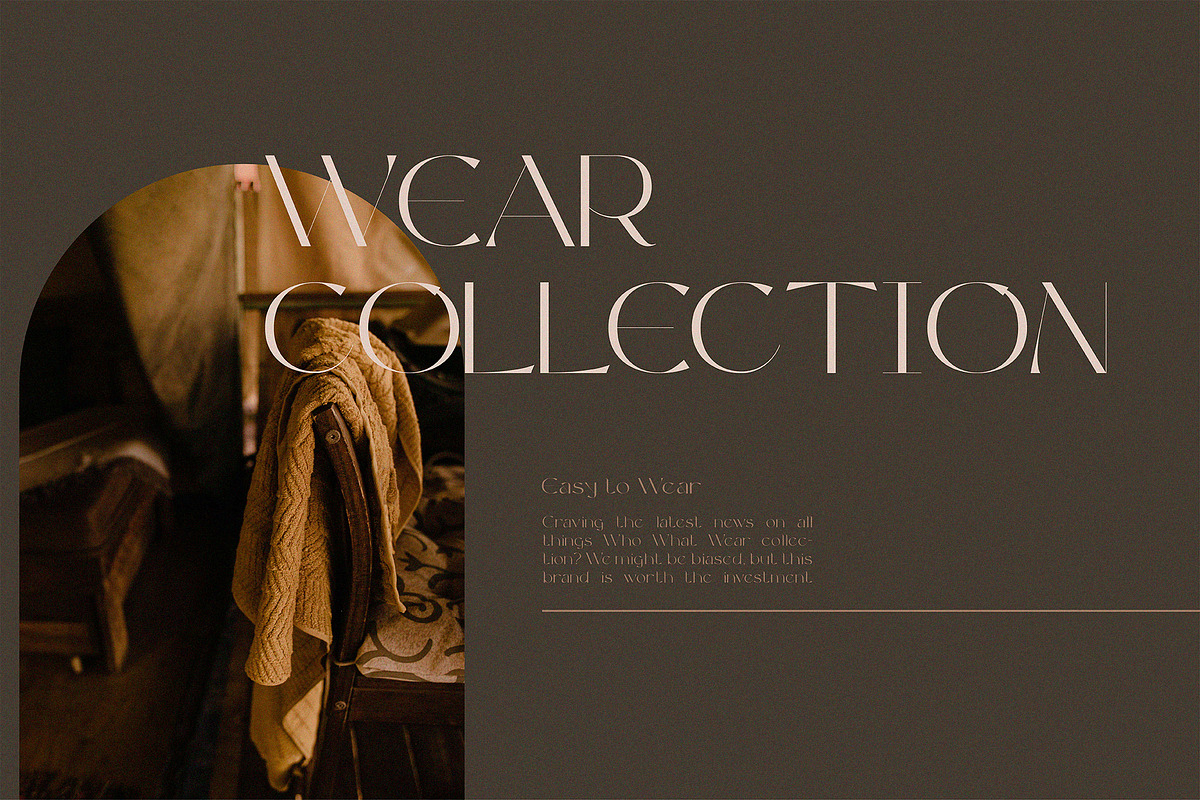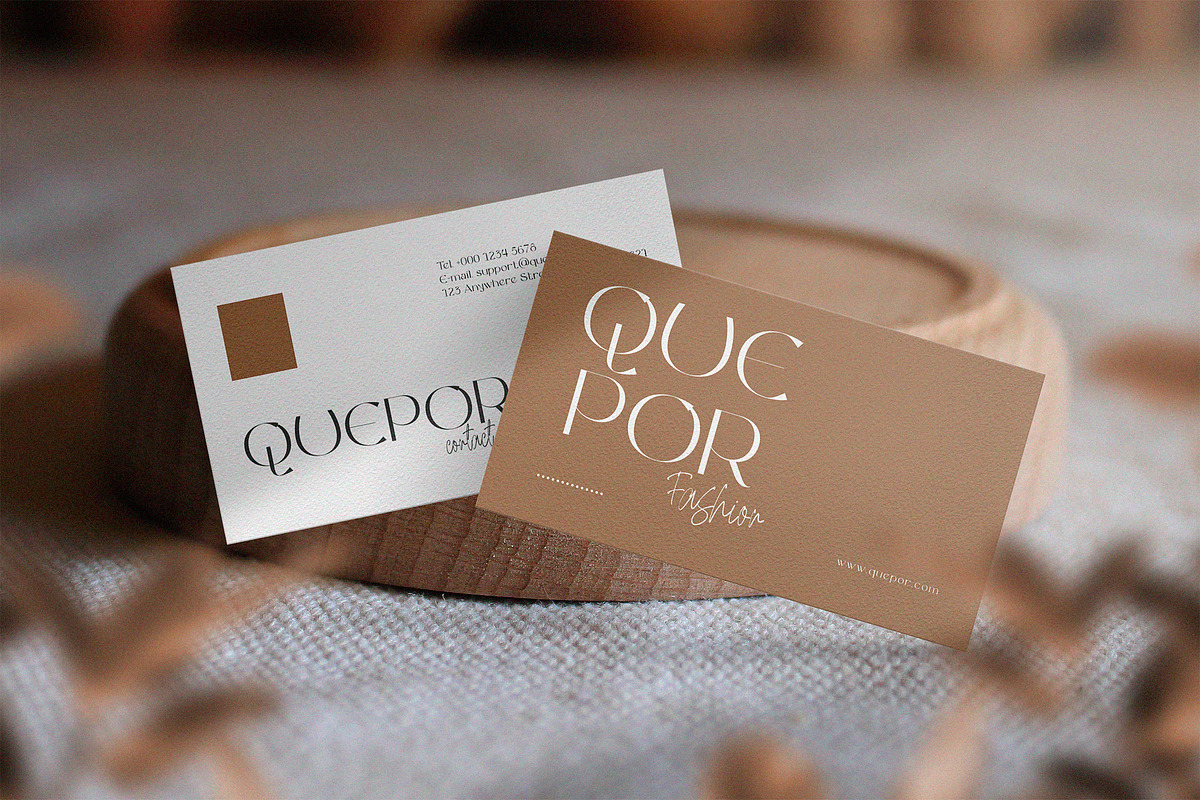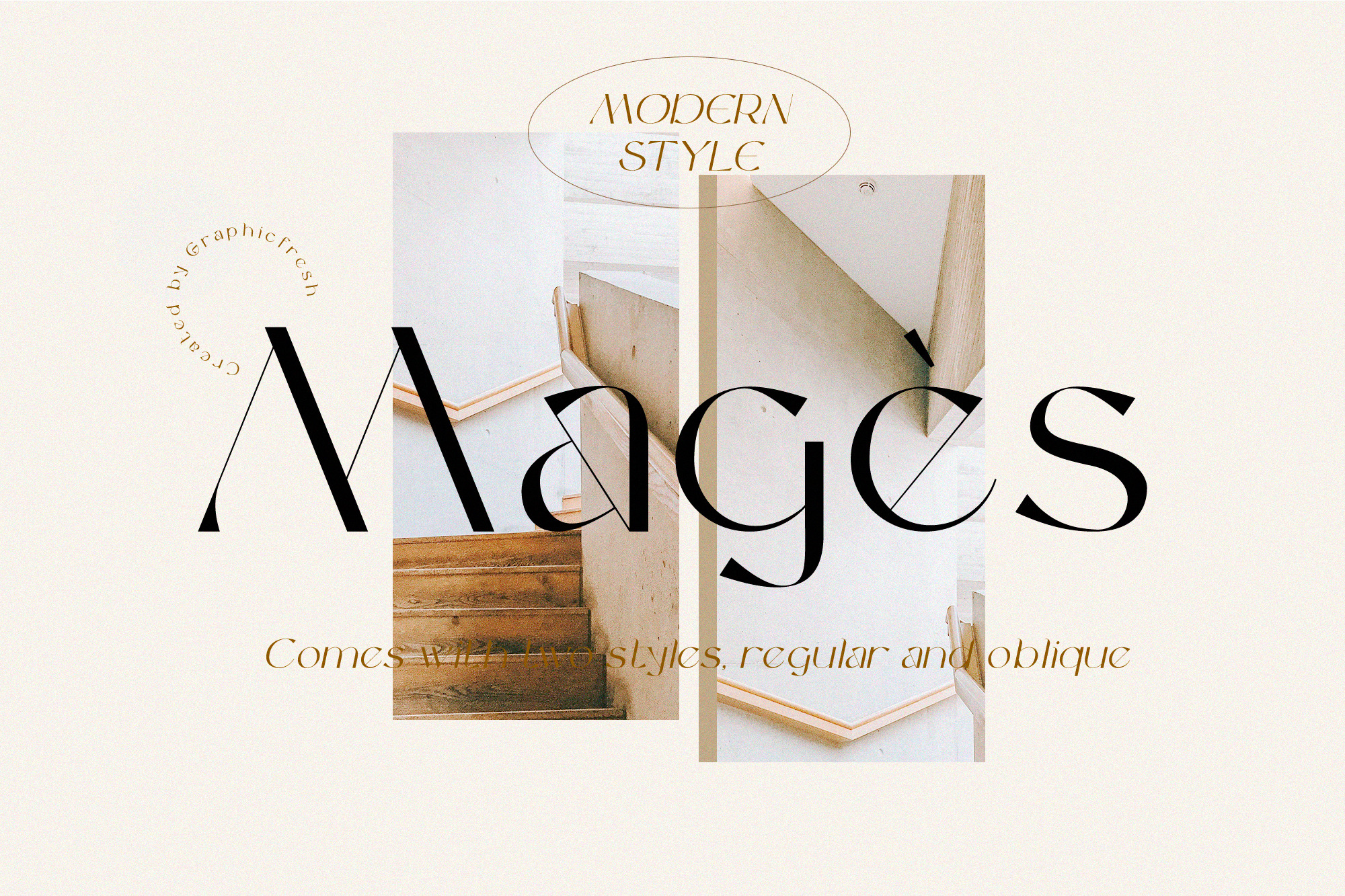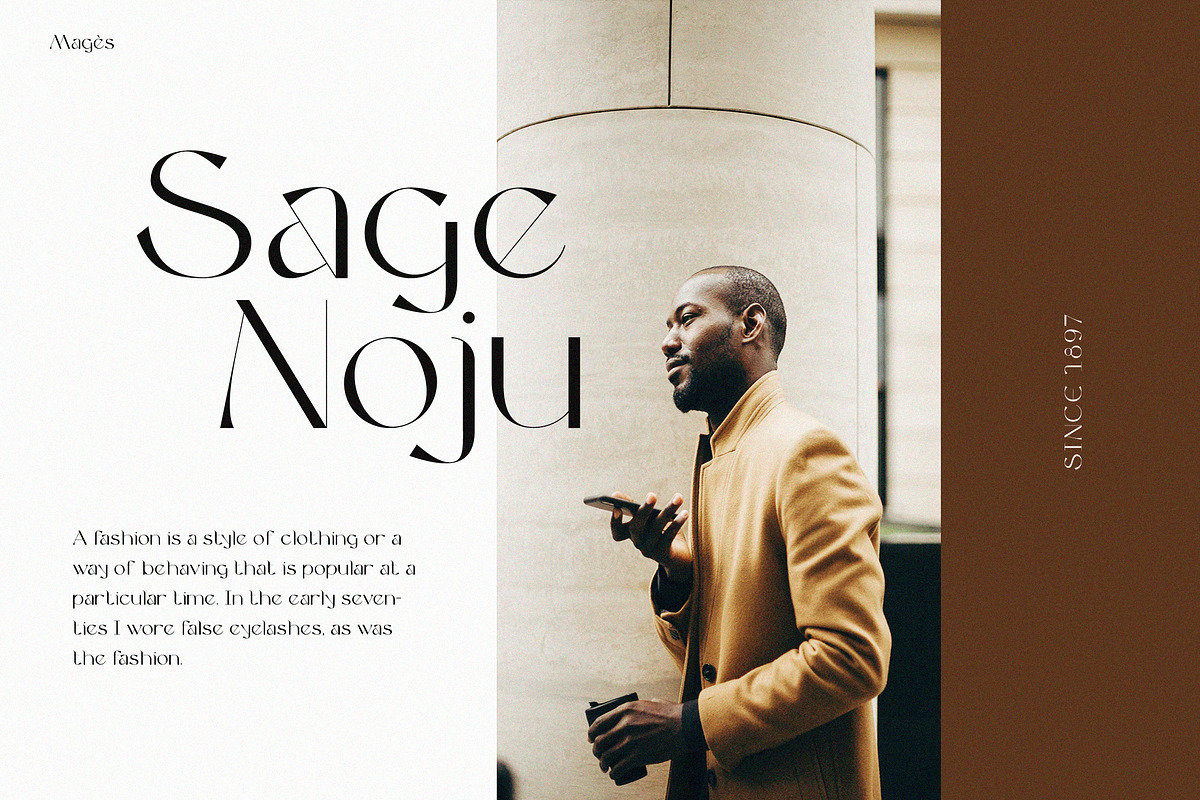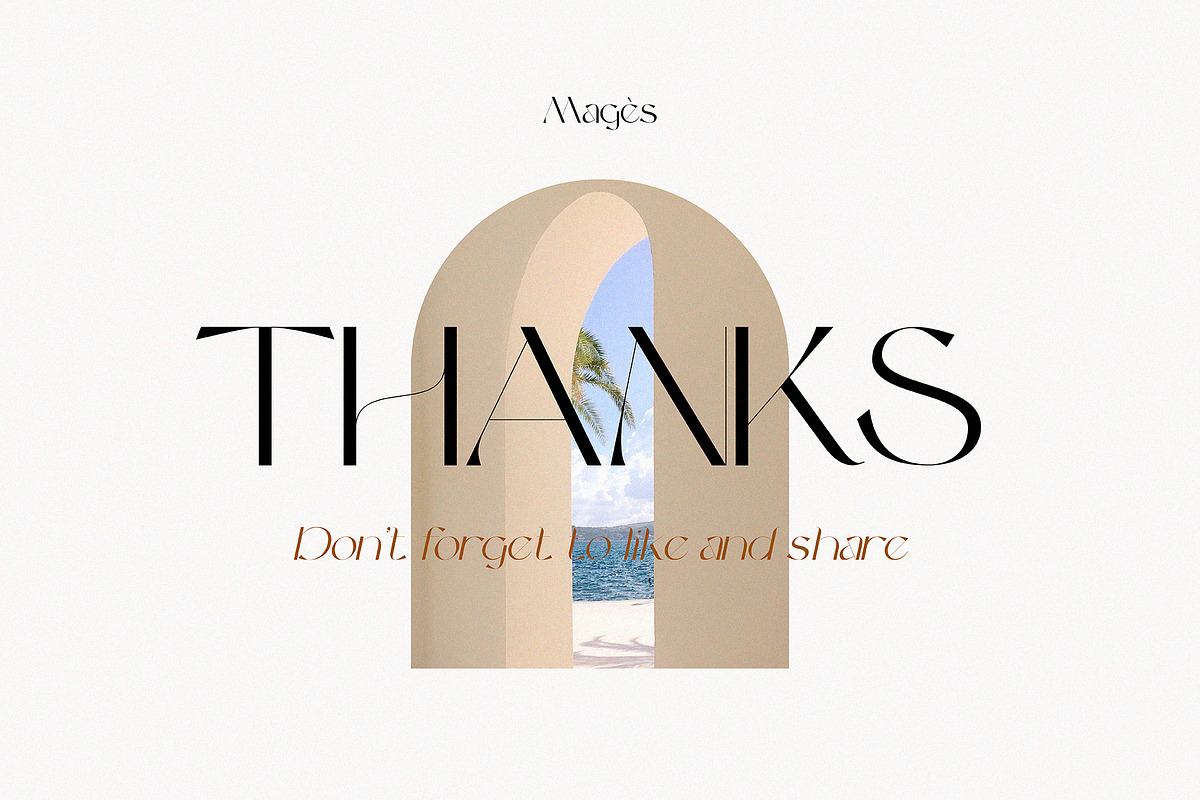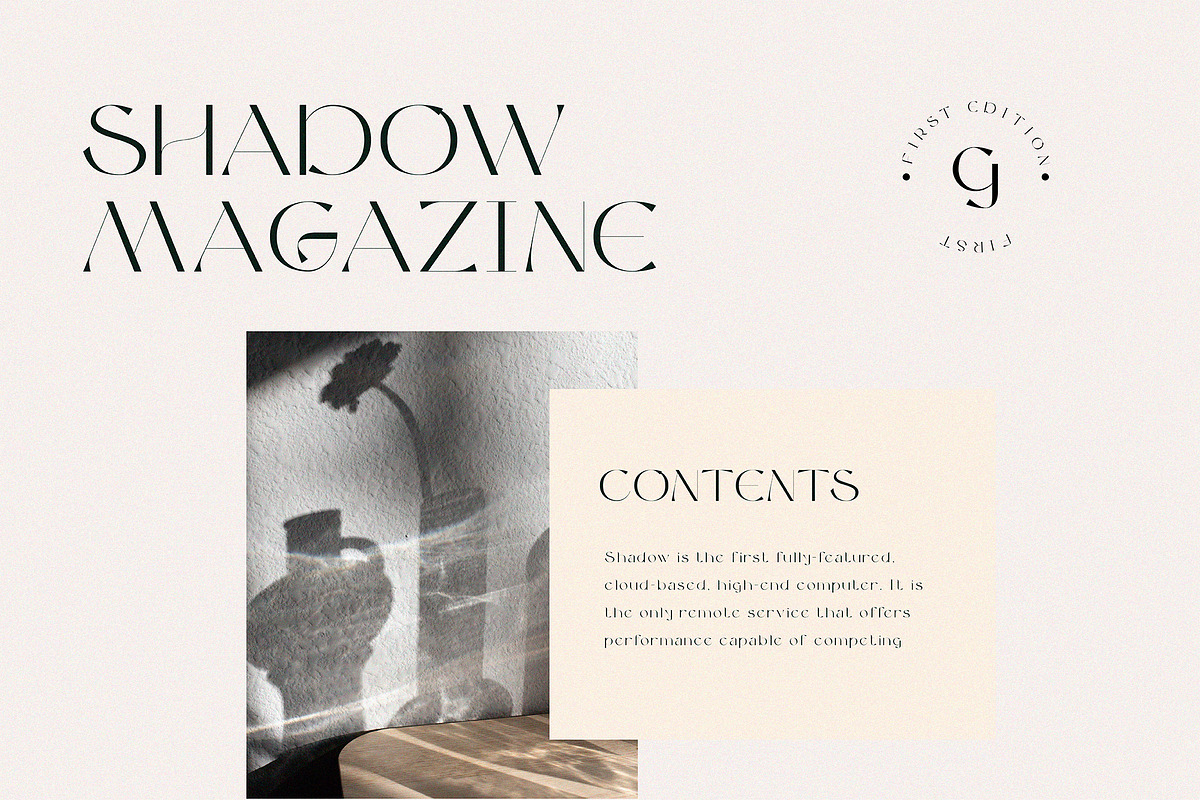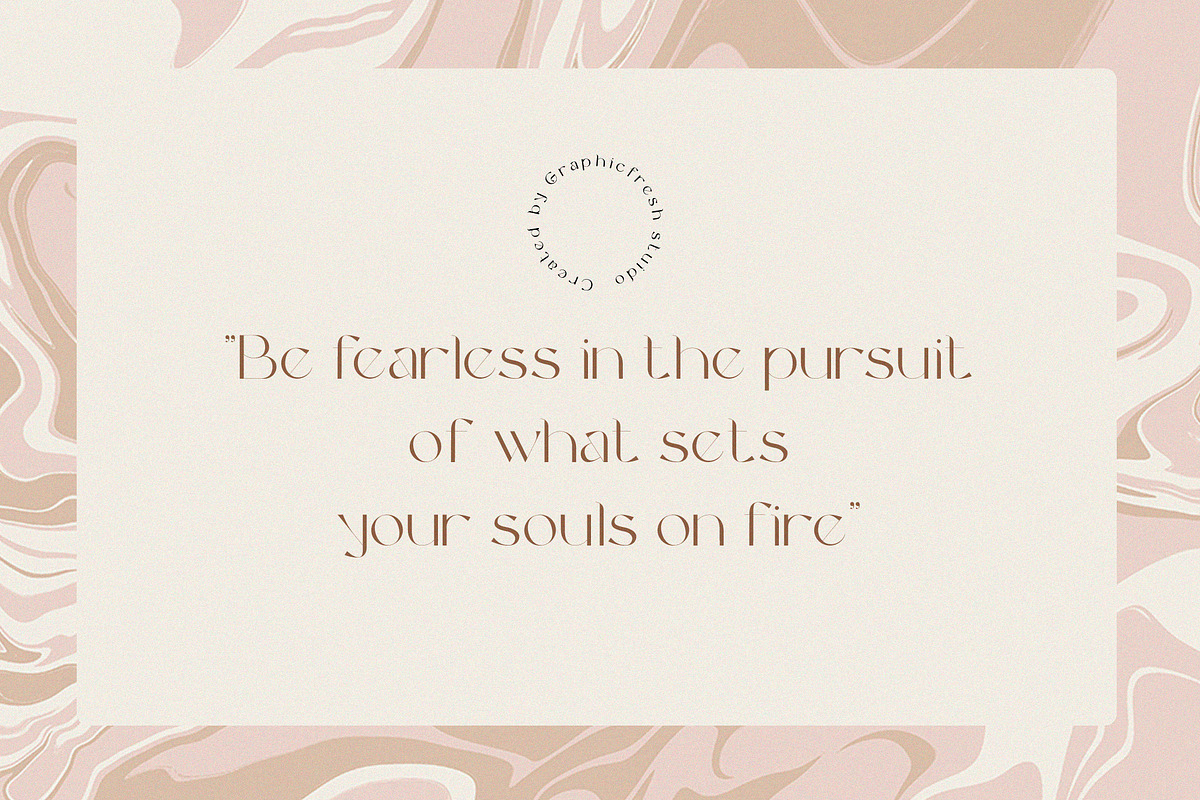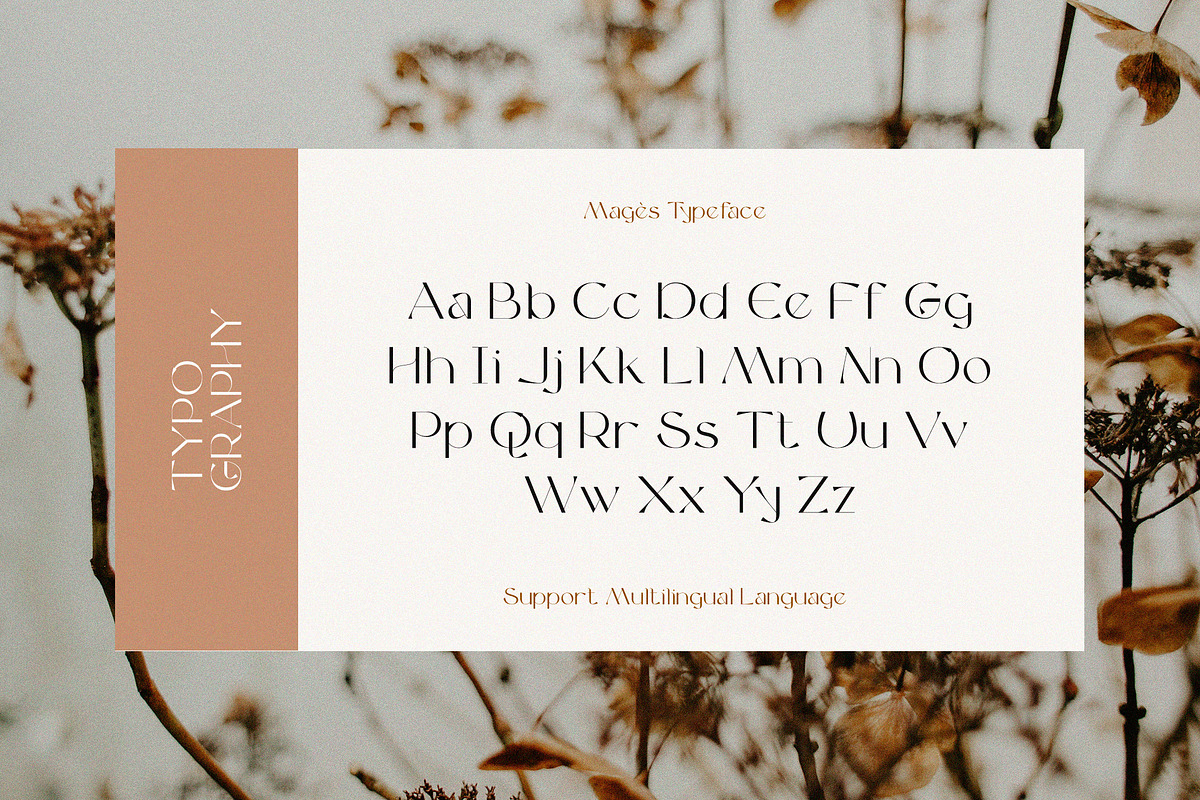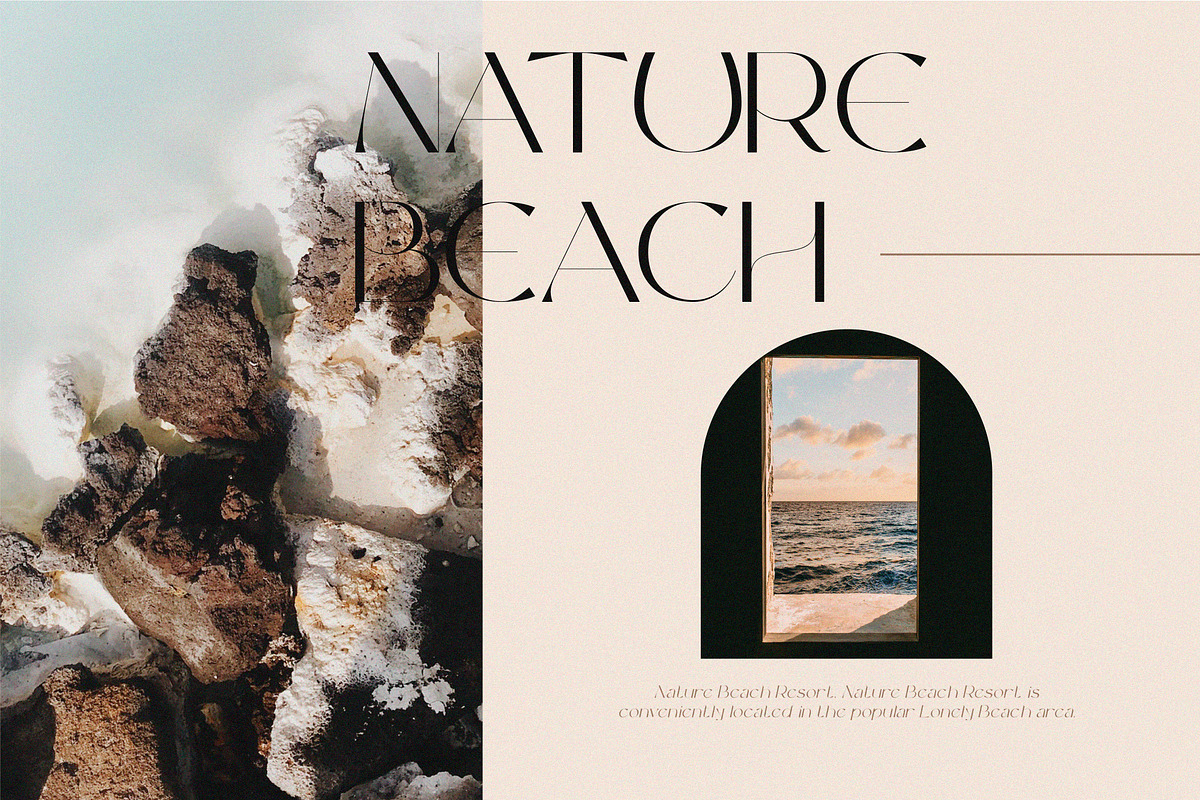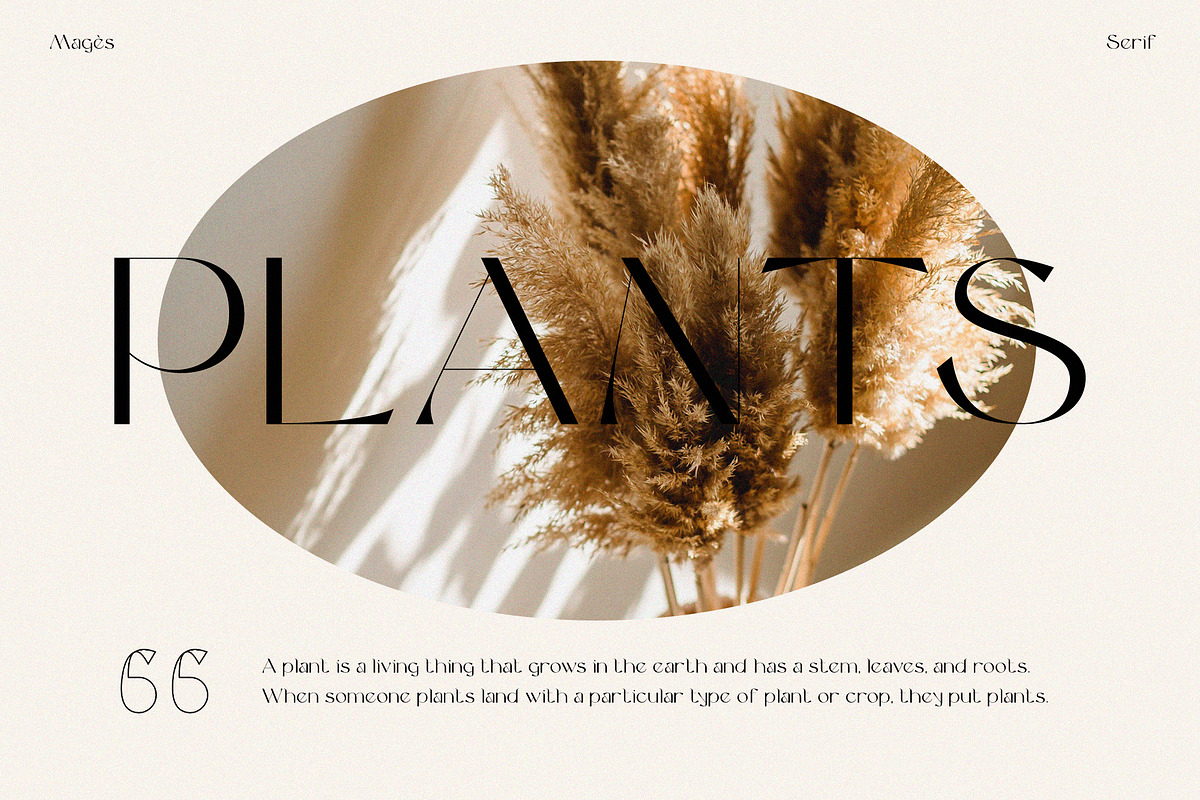
Magès - Modern Serif Typeface
Magès is a modern and elegant font. This font is made with a shape that sticks out more to the classics. So you'll find this font emphasizes an artist's feelings for his work. Masculin and feminine flavors are contained in this font. We created a different character for each letter so that it is easy to stick to the mind. Modern and minimalist character! it's perfect for logos, name card, magazine layouts, invitations, headers, or even large-scale artwork.
Magès, Regular and Oblique version, numerals and more of symbols.
Multilingual support for various languages